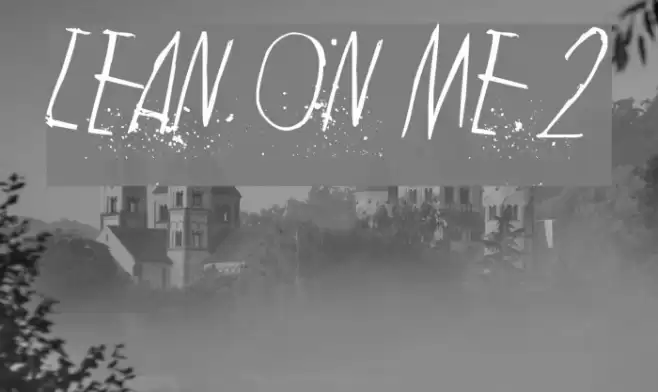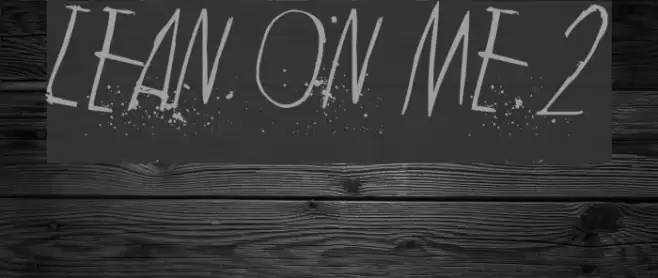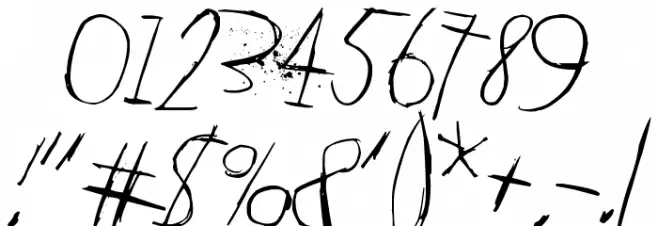
Lean on me 2 Font
Lean on me 2 Description
This font features a hand-drawn, distressed style with a unique, artistic flair. The characters are elongated and slightly tilted, giving them a dynamic and energetic appearance. The irregular strokes and splatter effects add a grunge aesthetic, making it stand out as a creative and expressive typeface. The uppercase and lowercase letters maintain a consistent style, while the numbers and special characters follow the same artistic theme. This font is perfect for projects that require a bold, unconventional look.
A hand-drawn, distressed font with a grunge aesthetic and dynamic style from Uncategorized fonts.
- Proposed Projects: Ideal for album covers, posters, streetwear branding, and artistic projects requiring a bold statement.